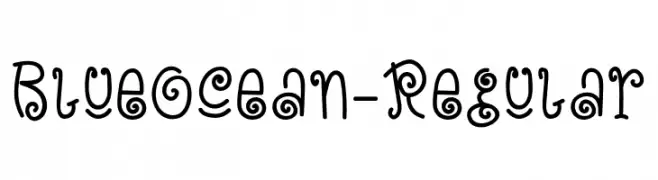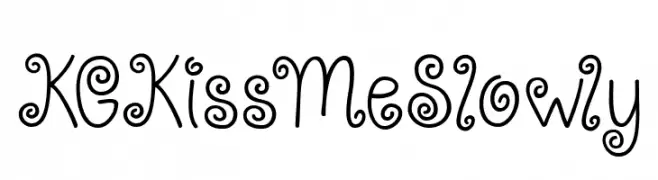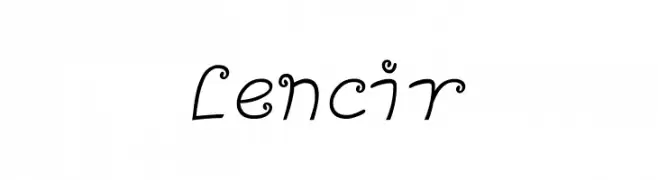
A whimsical, curly handwritten font with playful loops and dynamic strokes.
A whimsical, curly font with playful loops and swirls.
A whimsical, decorative font with curly, artistic flourishes.
( Introducing Chahna, a cool and fresh handwritten font. Designed to suit the designer's needs of a font that can bring joyful feelings of children. You can use it on various projects such as invitation cards, children books, restaurant menus, etc. It come )
A playful, handwritten font with curly, dynamic strokes.
A playful and whimsical font with curly, rounded letterforms.
A playful and whimsical font with spiral and curly elements.
A whimsical and ornate font with curly, decorative letterforms.
A whimsical, spooky font with curly accents and bat motifs.
A playful and whimsical font with decorative swirls and loops.
A whimsical and playful font with curly, flowing letterforms and a hand-drawn feel.
A playful, whimsical font with hand-drawn, curly characters.
A whimsical, curly font with playful and decorative letterforms.
A playful and whimsical font with curly, decorative uppercase letters and bold, consistent numbers.
A whimsical script font with curly, looping letterforms and decorative flourishes.
A whimsical and decorative font with curly, hand-drawn elements.
A playful and whimsical font with curly, flowing letterforms and decorative flair.
A playful, curly font with bold strokes and decorative swirls.
A whimsical, hand-drawn font with curly, irregular strokes perfect for magical and playful designs.
A whimsical and decorative font with curly, flowing letterforms.
A whimsical and playful font with curly, flowing letterforms and decorative elements.
A whimsical and artistic script font with flowing, curly lines and playful loops.
A whimsical and decorative font with curly embellishments, perfect for festive and playful designs.
A whimsical, curly font with decorative elements, perfect for creative projects.
A playful, curly font with bold, smooth strokes and a whimsical style.
A playful, curly font with rounded edges and whimsical character.
A playful and whimsical font with curly, looping strokes and elegant flourishes.
A decorative font with curly serifs and playful swirls, offering a unique blend of elegance and creativity.
A whimsical, playful script font with curly, hand-drawn letterforms.
A playful and whimsical font with rounded, curly elements and consistent stroke width.